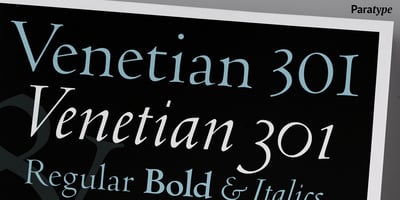
Venetian 301 Font Family was designed by Dmitry Kirsanov and published by ParaType. Venetian 301 contains 6 styles and family package options. Venetian 301 is the Bitstream version of the Centaur type family, originally designed by American book designer Bruce Rogers. Rogers based his design on the Venetian typefaces of Nicolas Jenson from 1470.The beautiful italic of Venetian 301 is inspired by a typeface from Ludovico degli Arrighi and was developed by Frederic Warde, an American calligrapher and typography researcher.The letterforms of Venetian 301 owe much to the pen-drawn letters of the Italian humanist minuscule and cursive. This elegant humanist typeface is ideal for the finest typography, excelling in both book text and display matter.The Cyrillic version of Venetian 301, including original small capitals, was developed for Paratype in 2003 by Dmitry Kirsanov.Venetian 301 main characteristics:- 6 styles in total- 630+ glyphs in each style- 15 OpenType features, including Small Capitals- Extended Latin and Cyrillic supportAnd if you need font files in different formats or want to try this font, just drop us a line at info@paratype.net, and we’ll work something out.